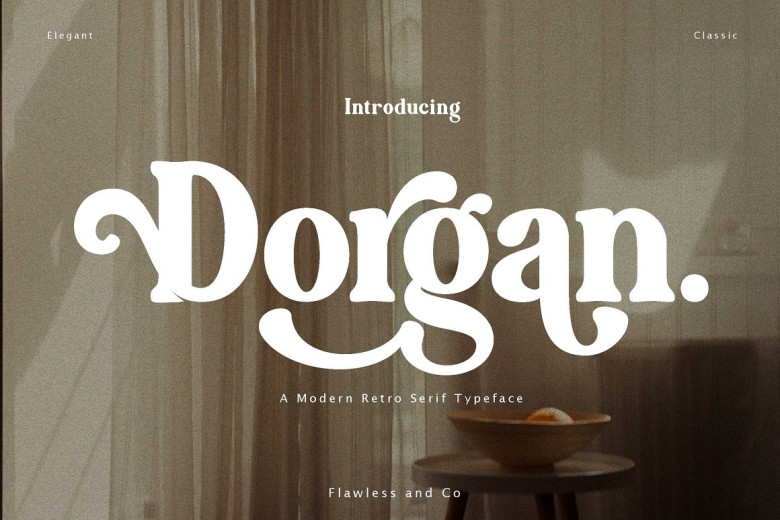
Dorgan Font
Dorgan features a retro style with bold and fun elements, making it the ideal font choice for boho themed projects such as posters, branding materials (business cards and t-shirts), logos photography quotes. Experiment with different characters to achieve different visual results!
Dorgan Serif Font